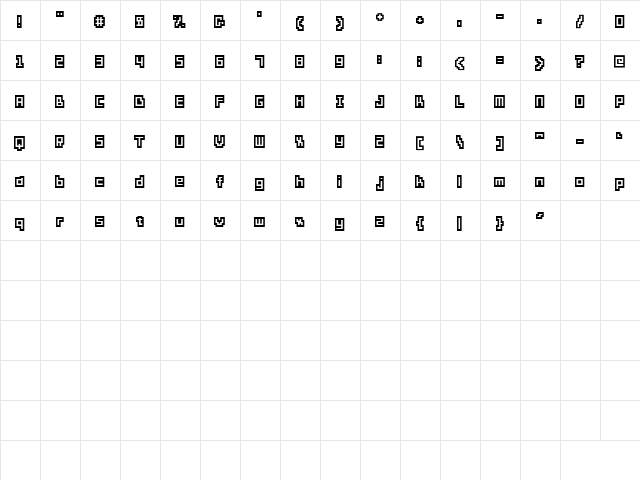
Micro Bit +1 Regular
Design Context for Micro Bit +1 Typeface
Micro Bit +1 takes a measured approach to typography — its balanced proportions and neutral character make it a reliable workhorse for both digital and print work.